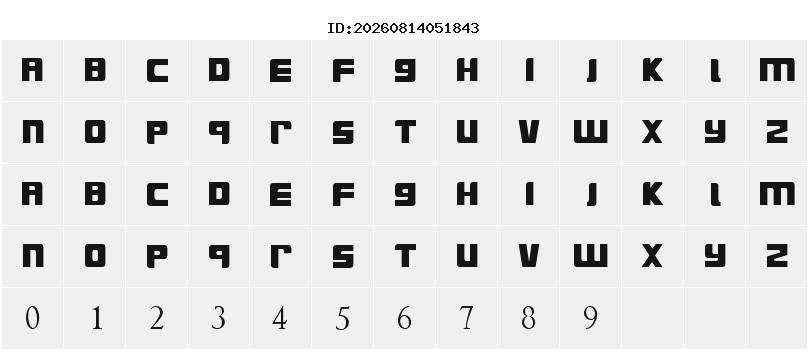
SurfsUp Preview
• Font Name: SurfsUp
• Full Font Name: SurfsUp
• Designer: CJS
About SurfsUp.ttf
SurfsUp.ttf is a modern, elegant sans-serif font designed for ultimate readability and visual harmony. Perfect for branding, headlines, web design, and print materials.